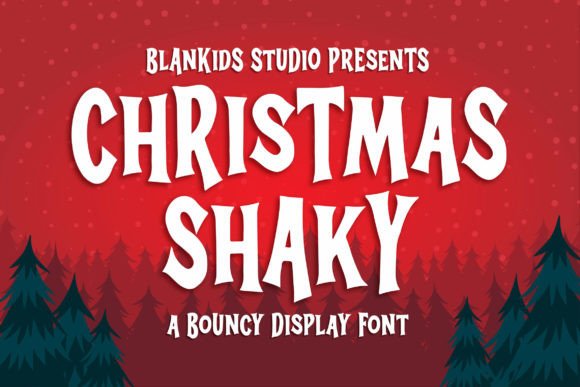
Introducing Christmas Shaky Font, the ultimate choice for those seeking a cartoonish and playful font that will make your designs stand out from the crowd. Created by the talented team at Blankids Studio, this bouncy display font is inspired by the whimsical charm of stone-style typography.
Are you tired of the same old boring fonts? Do you want to infuse your designs with a sense of creativity, imagination, and endless fun? Look no further, because Christmas Shaky Font is here to save the day! With its unique and eye-catching style, this font will capture the hearts of both children and adults alike.
Designed with the utmost attention to detail, Christmas Shaky Font boasts a level of aesthetics that is hard to find elsewhere. Its playful and vibrant nature makes it the perfect choice for a wide range of design projects. Whether you're working on book covers, children's books, comics, posters, packaging, merchandise, or even a captivating logotype, this font will exceed your expectations.
This font is not just visually appealing, but it also comes with a plethora of handy features. Its versatility allows you to experiment with different sizes, colors, and effects, ensuring that your designs are truly one-of-a-kind. Let your imagination run wild as you explore the endless possibilities that Christmas Shaky Font has to offer.
But wait, there's more! Christmas Shaky Font is not just a pretty face; it is also highly functional and user-friendly. With its easy-to-read characters and smooth curves, you can effortlessly convey your message to your audience. Whether you're aiming for a fun and playful tone or a more professional and polished look, this font has got you covered.